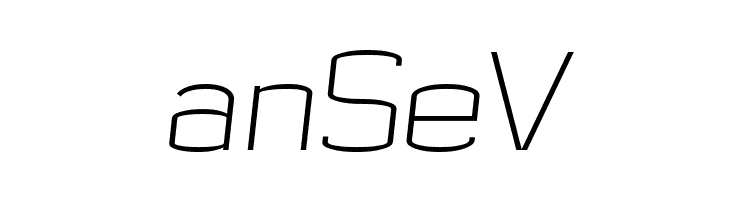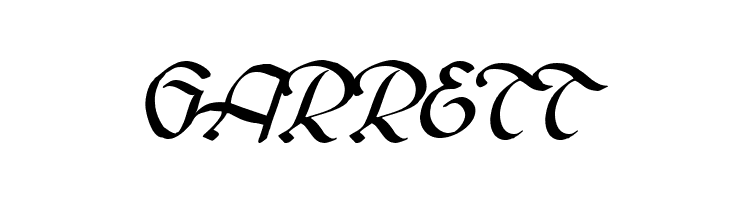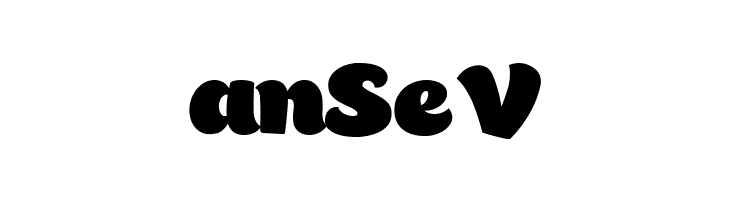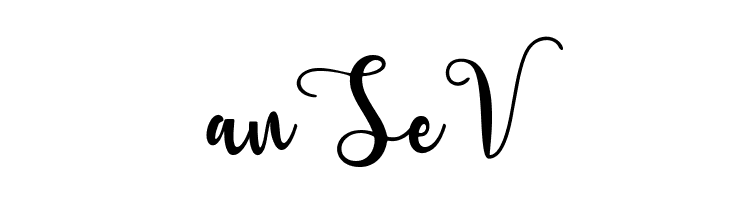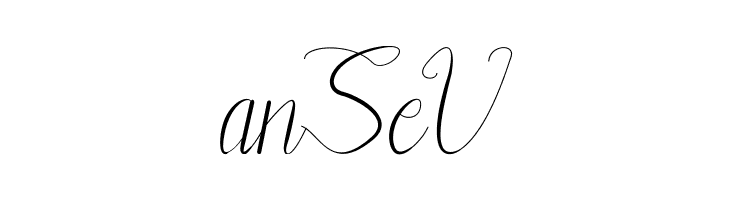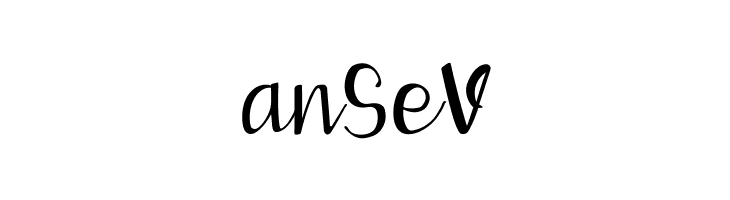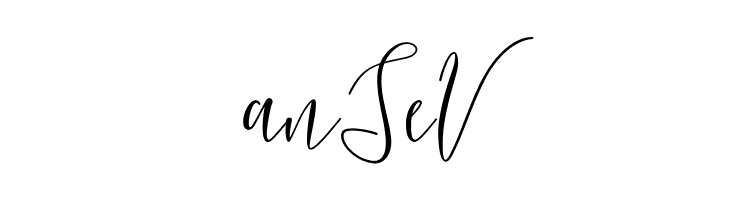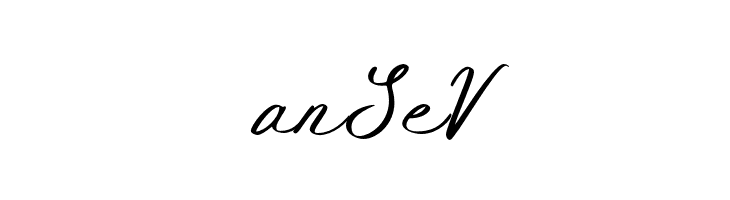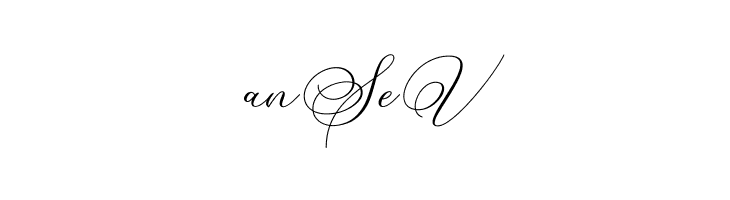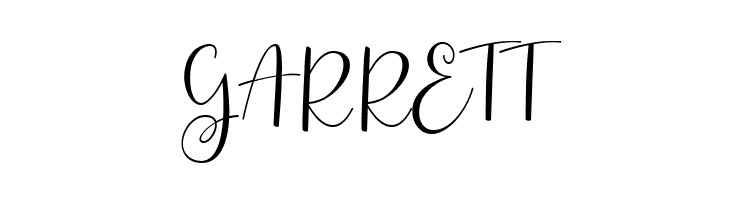
A lively and elegant script font with smooth, flowing curves.
A graceful and artistic script font with flowing, cursive letters and intricate loops.
A bold, expressive brush script font with dynamic strokes and artistic flair.
An elegant and flowing script font with graceful curves and loops.
A graceful and elegant script font with fluid, connected letters.
A modern, elegant script font with flowing cursive letters and artistic flourishes.
A flowing, cursive script font with elegant, sweeping strokes.
A classic, elegant script font with flowing, connected letterforms and high contrast.
A lively and playful script font with flowing, interconnected strokes.
A sophisticated script font with flowing, decorative curves.
An elegant, flowing script font with intricate loops and a dynamic italic style.
A charming and fluid script font with elegant, flowing letterforms.
A flowing, cursive script font with elegant, connected letters and dramatic flourishes.
A sleek, modern font with clean lines and a slightly condensed form.
A sleek, modern font with clean lines and slightly condensed letterforms.
A bold, brush-style script font with dynamic strokes and artistic flair.
An elegant, flowing script font with a sophisticated and graceful appearance.
A sophisticated, fluid script font with a handwritten style.
A bold, hand-drawn font with an expressive and playful style.
A playful, condensed font with a hand-drawn feel and medium contrast.
A bold, expressive script font with a hand-drawn, brush-like texture.
A playful, handwritten font with rounded edges and a casual style.
An elegant and flowing script font with intricate loops and high contrast.
A bold, playful handwritten script with smooth, flowing characters.
An elegant script font with fluid, cursive strokes and intricate loops.
A lively, flowing script font with elegant, elongated letterforms.
A classic cursive font with elegant, flowing strokes and a sophisticated style.
An elegant cursive font with flowing, interconnected letterforms and ornate details.
A lively, cursive script font with interconnected characters and dynamic strokes.
A bold, playful script font with thick, rounded strokes and a whimsical style.